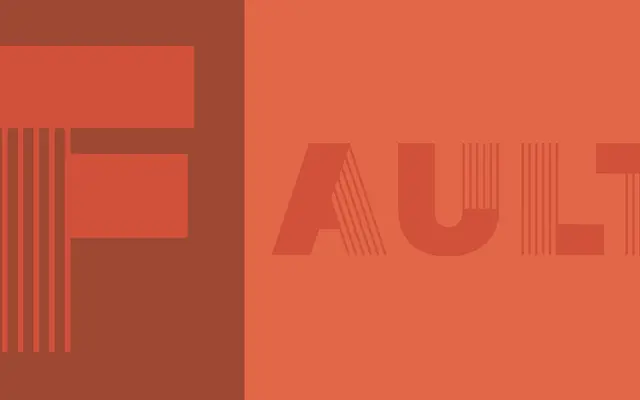
Fault specimen from Dharma Type
A display typeface with striped patterning built into the letterforms, aimed at poster and title work.
Striped elements run through the letterforms, giving each character a bold, graphic texture suited to large-scale applications. The treatment works best at headline sizes where the patterning reads clearly rather than collapsing into noise. Positioned for contemporary design projects where visual impact outweighs extended reading.
Fault is a display typeface with decorative striped elements, placing it firmly in the experimental display category where visual texture takes precedence over legibility at small sizes.